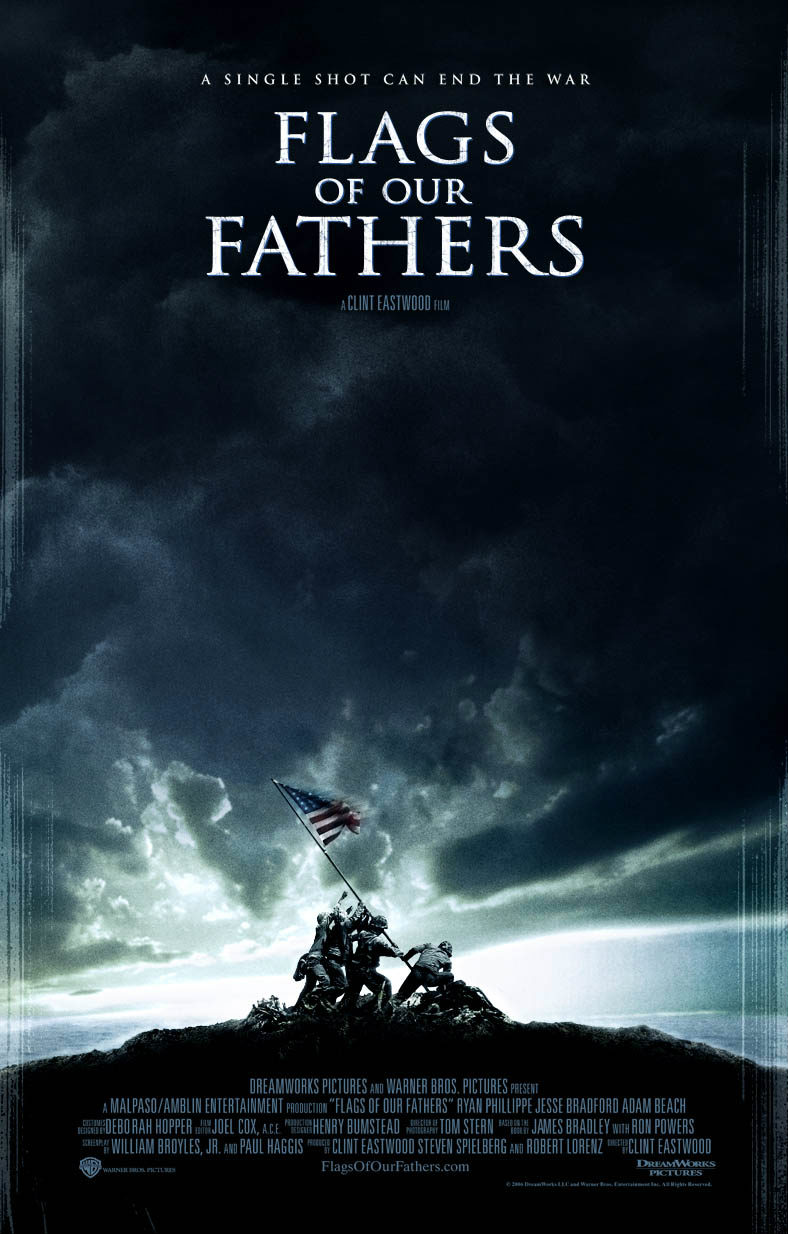
Flags of Our Fathers Font
Fonts in UseFlags of Our Fathers is a 2006 war film directed by Clint Eastwood, portraying the story behind the iconic photograph of U.S. Marines raising the American flag at the Battle of Iwo Jima during World War II, exploring the complex nature of heroism and the impact of war on individuals.
The film title in the "Flags of Our Fathers" poster uses the Trajan Bold font, designed by Carol Twombly, inspired by Roman letter carvings.